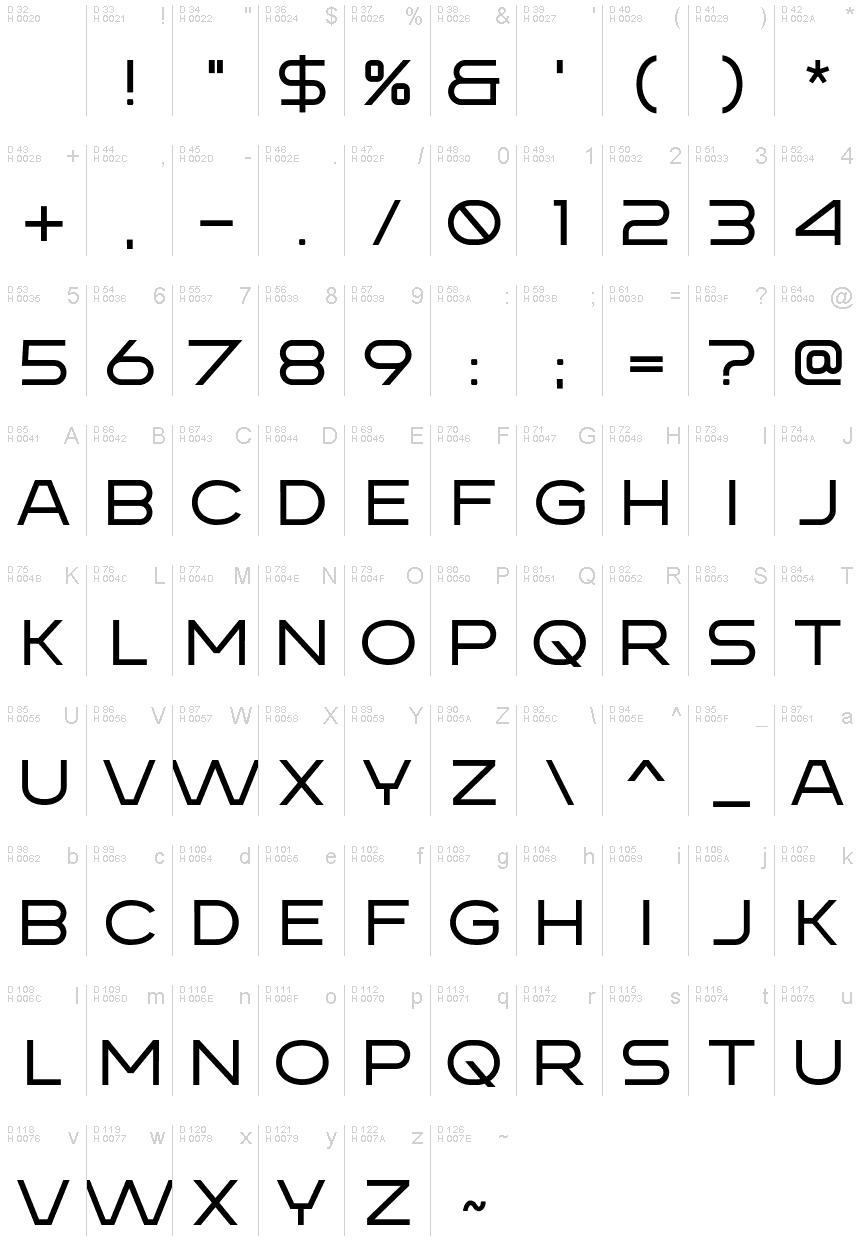
Sanset
Sanset, a creation by Khurasan, is a versatile sans serif font that exudes a modern and clean aesthetic. With its semi-light weight and extra-expanded width, this font is perfect for projects that require a balance between elegance and readability.
Its sleek appearance makes it suitable for various design applications such as branding, editorial design, websites, and packaging. Whether you're crafting sophisticated logos or designing user-friendly interfaces, Sanset will elevate your creations with its refined simplicity.